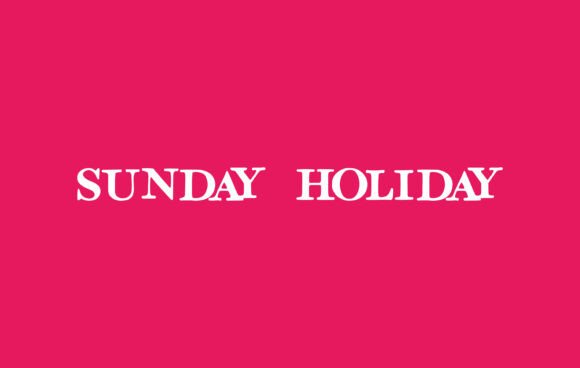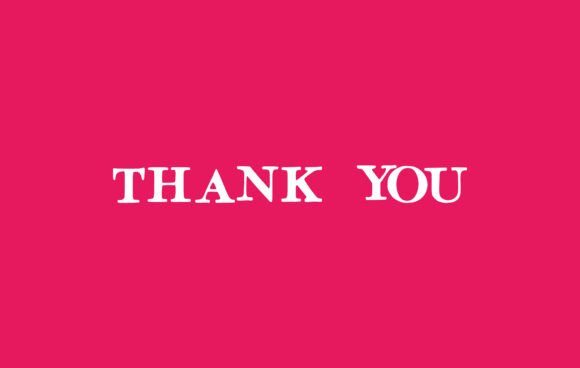
Unleash Your Creative Potential with the Atlas Font
Have you ever been working on a project, and suddenly, the perfect font pops into your mind? It’s like a spark of inspiration that sets your creative wheels in motion. For designers, finding that perfect font can be a game-changer. It’s the difference between a good design and a great one.
Enter the Atlas Font, a beautiful serif font with a romantic touch. Expertly designed to elevate your creative ideas, this font is perfect for a wide range of designs, from magazine headlines to wedding invitations. With its legibility and versatility, the Atlas Font is an invaluable addition to any designer’s toolkit. Whether you’re a seasoned pro or just starting out, this font has the potential to take your designs to the next level.
Atlas Font Key Features
- Unique Characteristics: Atlas Font features a distinctive blend of modern and vintage elements, offering a unique aesthetic that sets it apart from other fonts.
- Style Variations: Atlas Font offers multiple style variations, including regular, bold, italic, and bold-italic, allowing designers to create a wide range of visual effects.
Atlas Font Review
After working with the Atlas font, I have to say that it’s a unique and bold choice for any design project. Here are some things that I think work well:
- ✨ Distinctive Style: The Atlas font has a very distinct and recognizable style that can add a lot of personality to a design. It’s perfect for anyone looking to create a bold and eye-catching visual identity.
- ✨ Wide Character Set: The font has a wide character set that includes a lot of language support, making it a great choice for projects that require multiple languages.
- ✨ Customizable: The font can be customized to fit the needs of your project, with options for adjusting the weight, width, and style of the font.
- ⚠️ Limited Legibility: In certain situations, the Atlas font can be difficult to read, especially at smaller font sizes. This can be a problem for projects that require a lot of text.
- ⚠️ Limited Pairing Options: The Atlas font is quite bold and distinctive, which can make it difficult to pair with other fonts without creating a jarring or clashing visual effect.
Overall, I think the Atlas font is a great choice for projects that require a bold and eye-catching visual identity. However, it may not be the best choice for projects that require a lot of text or need to be paired with other fonts.
Atlas Font Practical Application Guide
Tips: Use Atlas Font for headings and titles to create a bold and modern look. Experiment with different font sizes and colors to enhance the visual appeal.
Tips: Use Atlas Font for text overlays and graphics to add a touch of sophistication. Experiment with layer blending modes and opacity to achieve the desired effect.
Tips: Use Atlas Font for titles and headings to create a clean and modern look. Experiment with font sizes and colors to enhance the visual appeal.
Atlas Font is ideal for:
– Modern branding and marketing materials
– Editorial and publishing projects
– Graphic design and visual arts
– Any project where a bold and modern look is desired